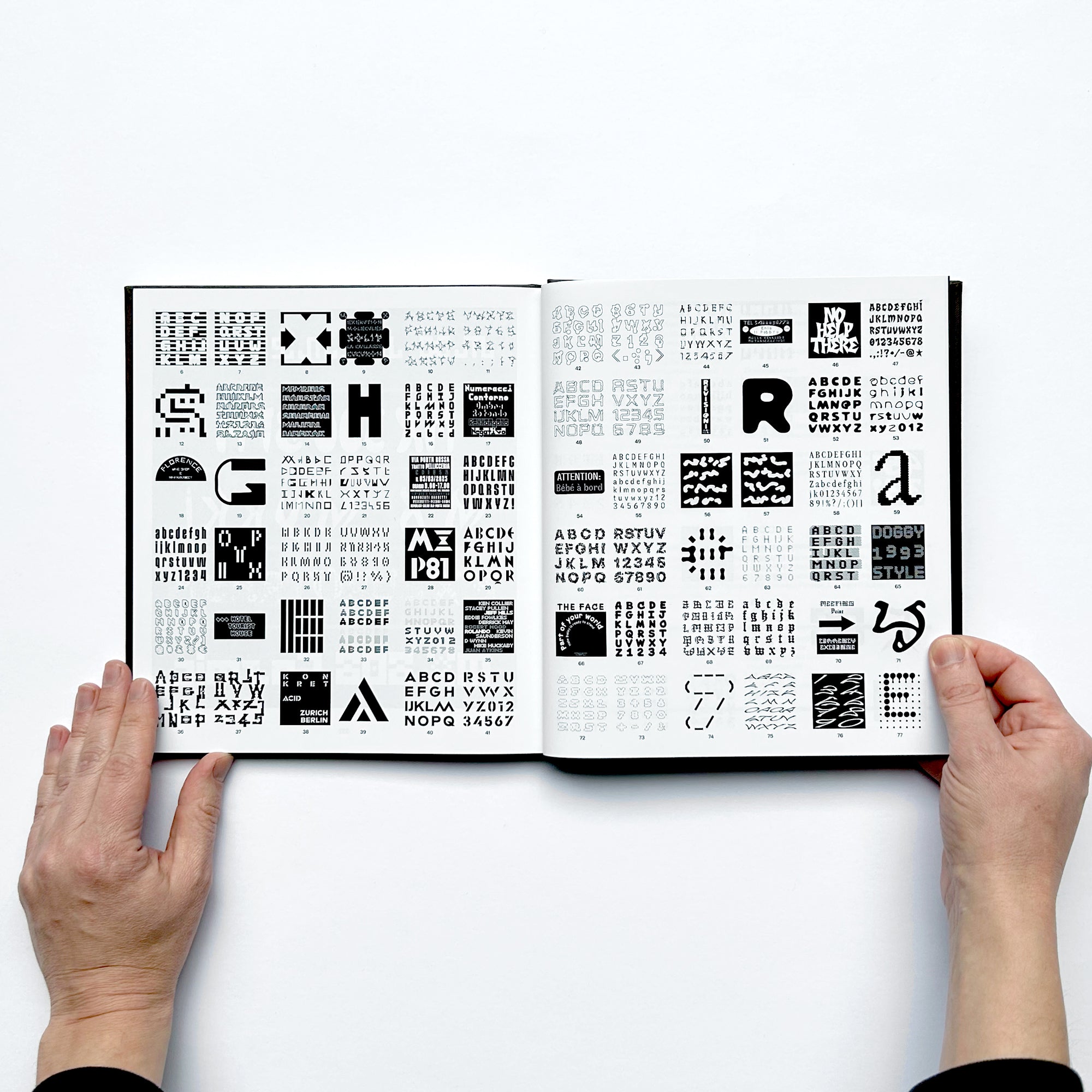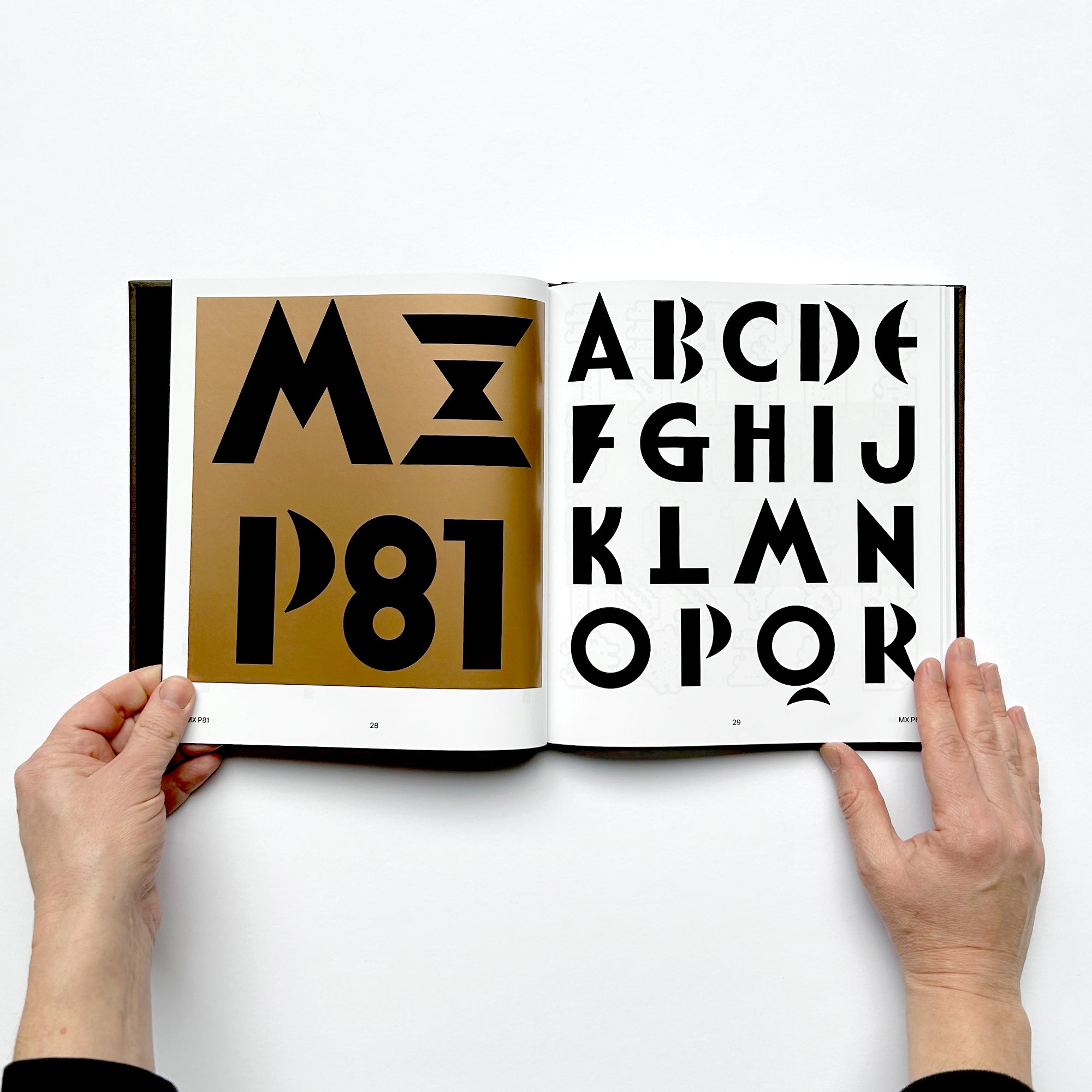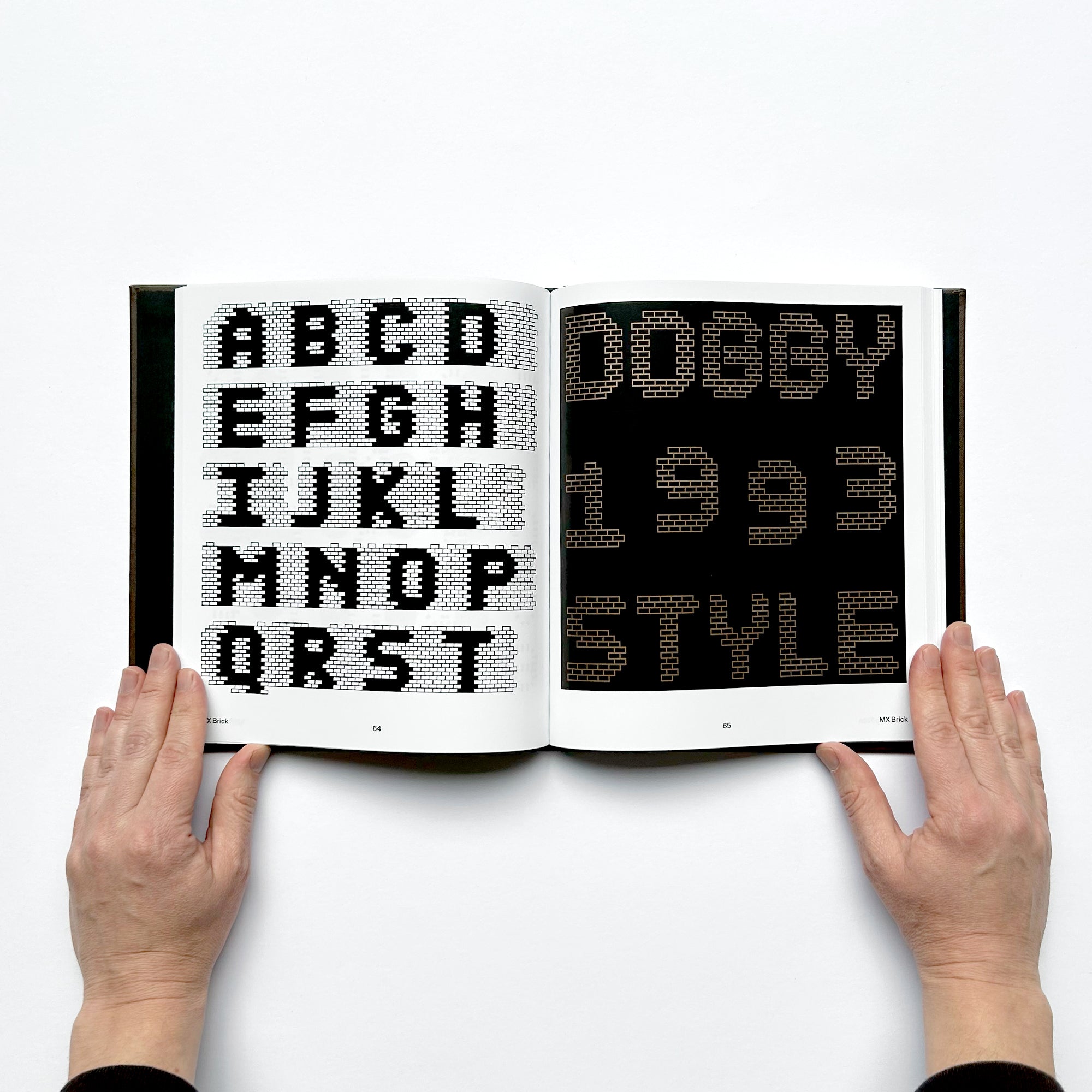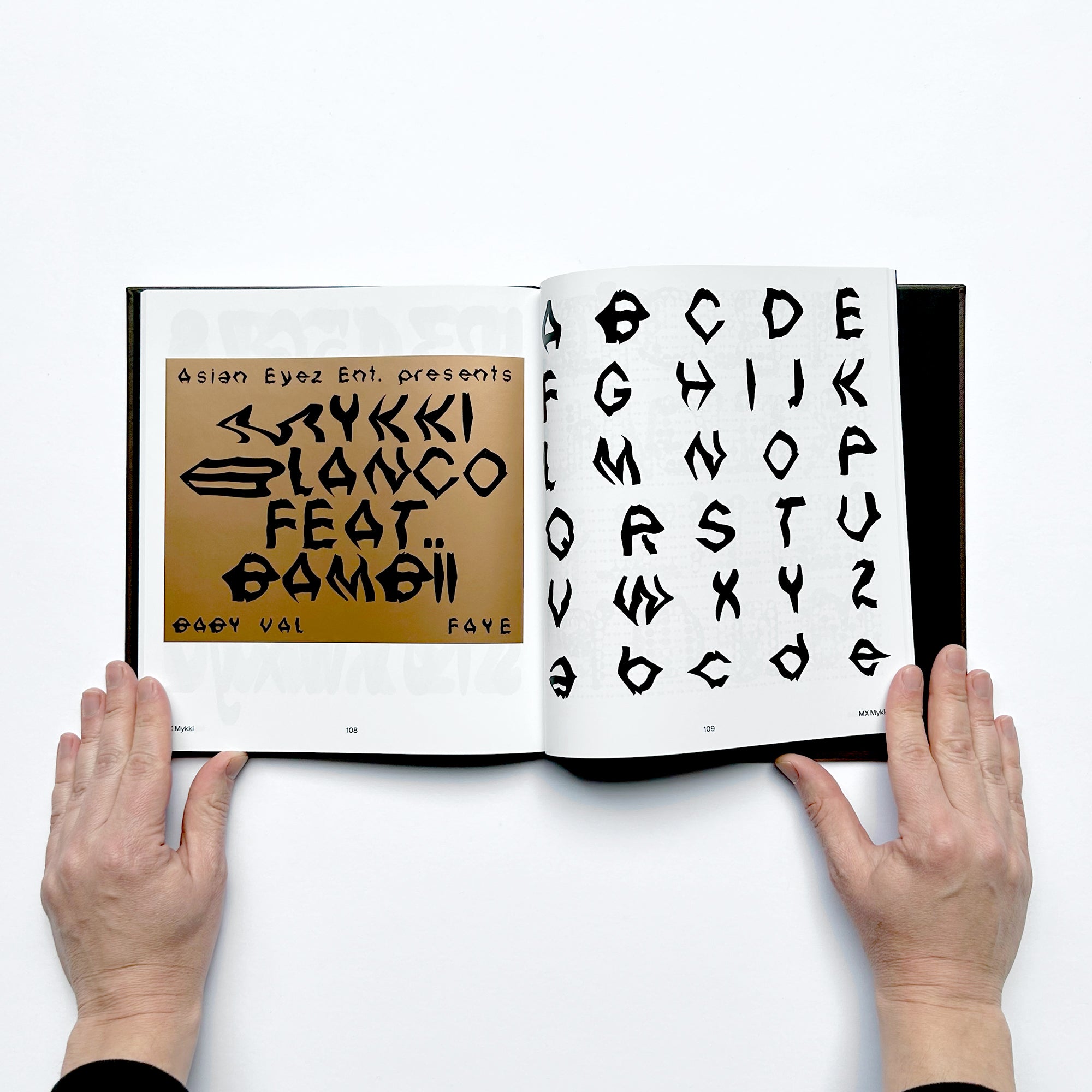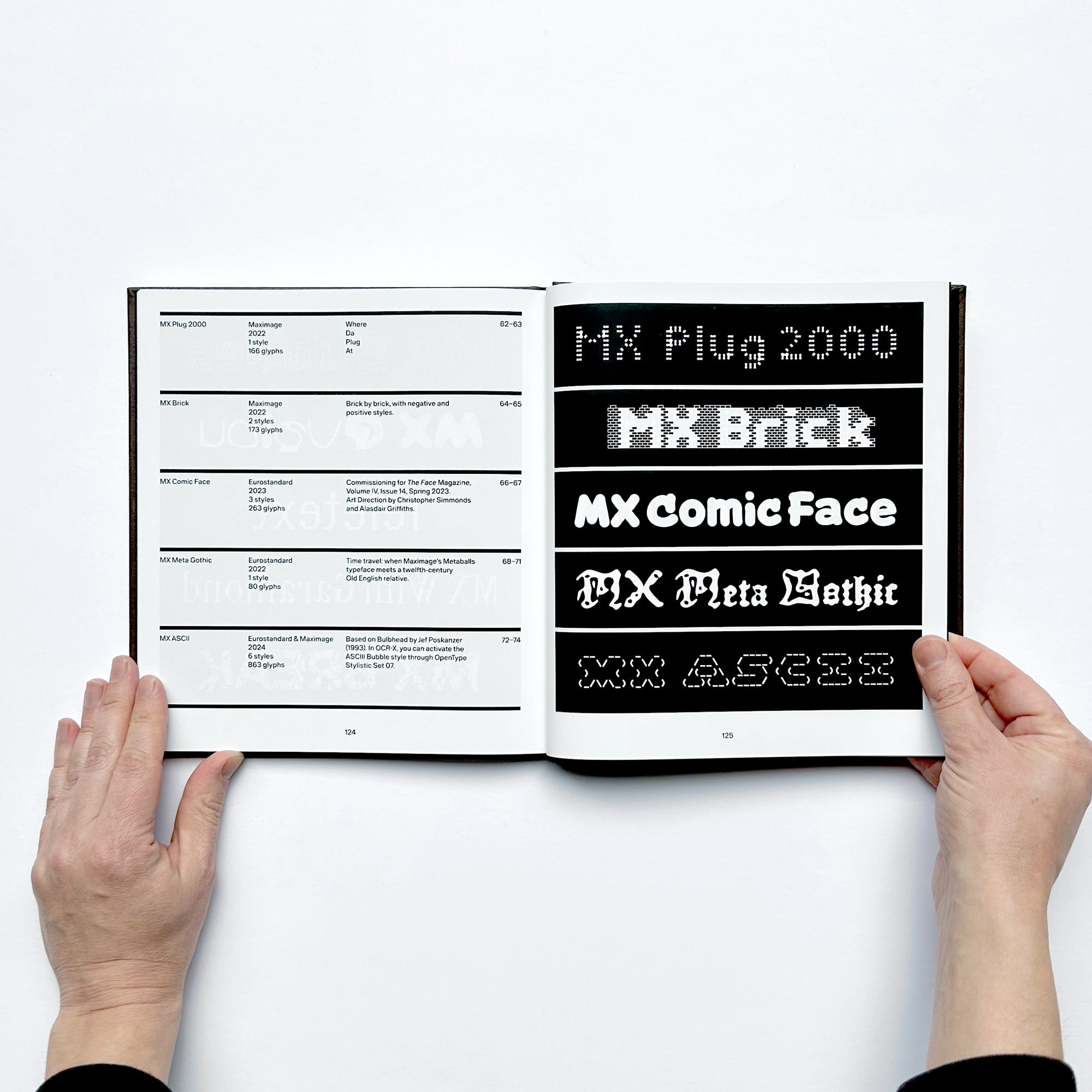
MXTP Vol. 1 (Display Typefaces)
MXTP Vol. 1 gathers a wild mix of display typefaces: blocky, funky, experimental, sad, geometric, distorted, nerdy, sticky, obsolete, trippy, and everything in between. Designed largely during Maxitype’s summer type residencies in Cucuron, France, these fonts embrace freedom over functionality. Originally known as the Maxitype Free Font Residency, MXTP encourages creative risk and rejects commercial pressure, allowing designers to explore references, techniques, and tools without limits. Loud music, fast ideas, and spontaneous experimentation shaped fonts created in a week, a day, or even an hour by the pool or at the bar. After three summers of MXTP, this volume kicks… Read more